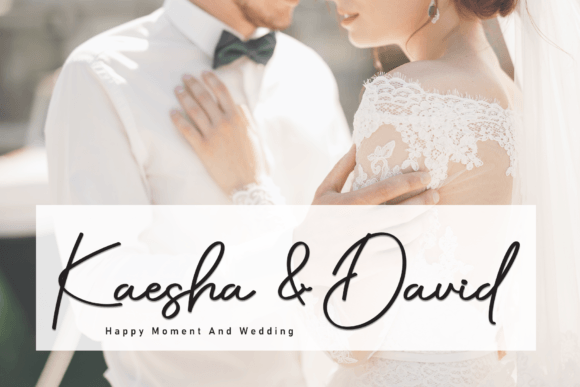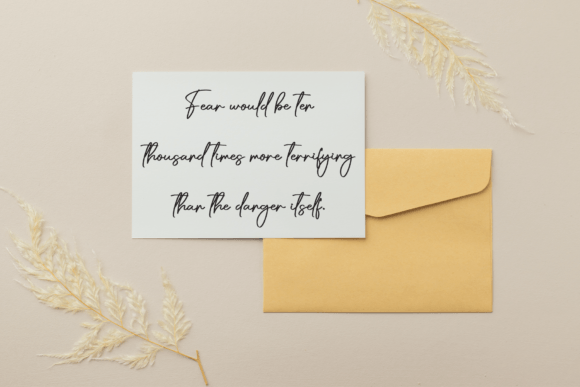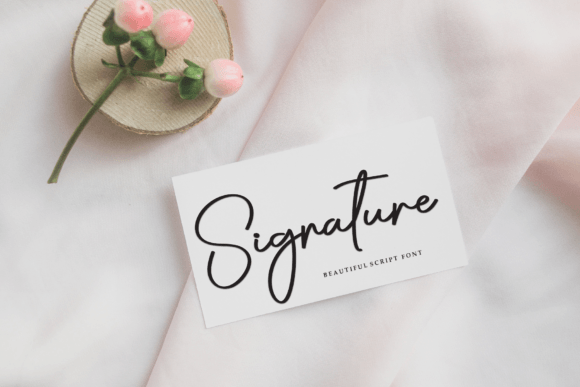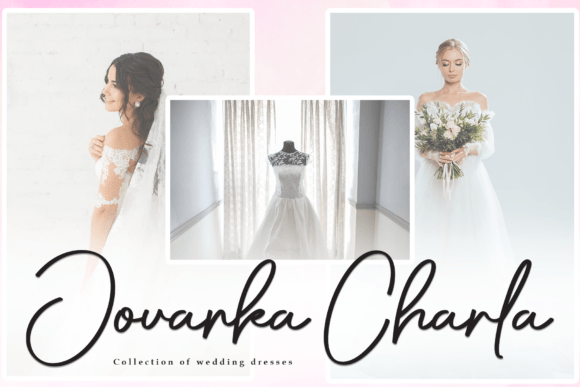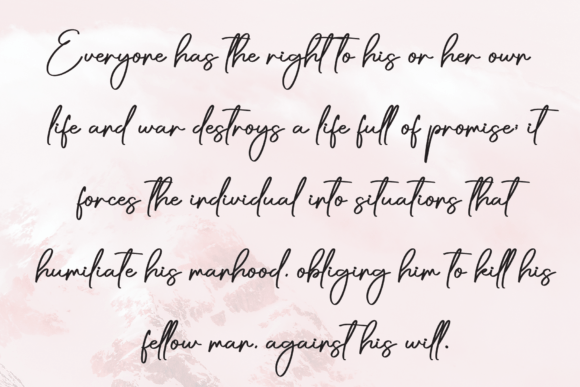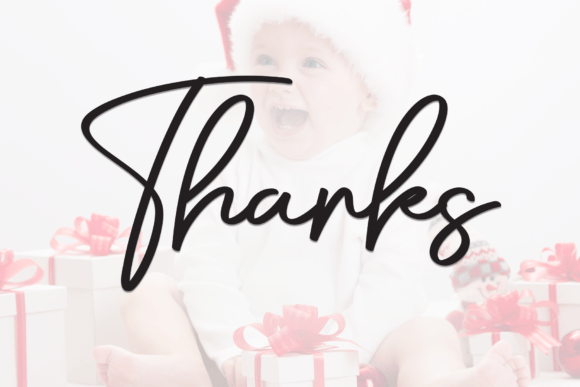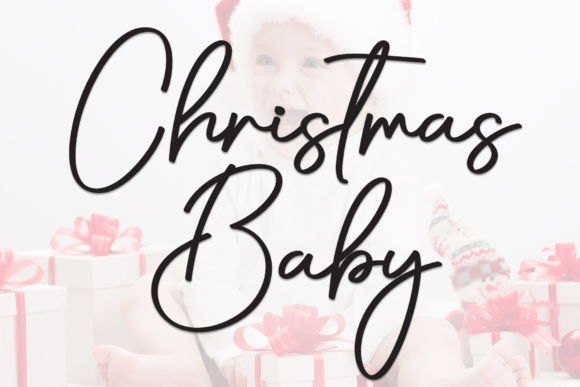
Introducing Christmas Baby Font: A Sweet and Friendly Handwritten Delight
Are you looking for a font that embodies the warmth and joy of the holiday season? Look no further than Christmas Baby Font, a sweet and friendly handwritten font that’s perfect for a wide range of design projects. With its natural and unique style, Christmas Baby Font is incredibly versatile and can be used to create a variety of designs that are sure to capture the spirit of the season.
The Characteristics of Christmas Baby Font
Christmas Baby Font is a handwritten font that boasts a charming and approachable feel. Its natural, cursive style gives it a personal and intimate touch, making it perfect for designs that require a friendly and welcoming tone. The font’s unique characteristics include:
- Handwritten style: Christmas Baby Font is a genuine handwritten font, crafted to resemble the natural flow and imperfections of handwriting.
- Unique and distinctive: The font’s one-of-a-kind style sets it apart from more traditional fonts, making it perfect for designers who want to add a touch of personality to their work.
- Natural and effortless: Christmas Baby Font has a relaxed, effortless feel that makes it perfect for creating designs that are warm, inviting, and engaging.
Endless Design Possibilities with Christmas Baby Font
One of the best things about Christmas Baby Font is its incredible versatility. The font’s natural and unique style makes it suitable for a wide range of design projects, from:
- Holiday cards and invitations: Create beautiful and festive holiday cards, invitations, and gift tags that are sure to delight your friends and family.
- Branding and packaging: Use Christmas Baby Font to add a touch of personality to your brand’s packaging and marketing materials.
- Digital and print media: The font is perfect for creating engaging social media graphics, blog posts, and print materials, such as flyers, brochures, and posters.
- Crafting and DIY projects: Christmas Baby Font is a great addition to any crafter’s toolkit, perfect for creating handmade cards, gift tags, and other DIY projects.
Why Designers and Crafters Love Christmas Baby Font
So, why do designers and crafters love Christmas Baby Font? Here are just a few reasons:
- Easy to read and use: The font is clear, legible, and easy to use, making it perfect for designs that require a friendly and approachable tone.
- Highly versatile: Christmas Baby Font can be used for a wide range of design projects, from digital media to print materials and crafting projects.
- Unique and eye-catching: The font’s distinctive style sets it apart from more traditional fonts, making it perfect for designers who want to add a touch of personality to their work.
Get Creative with Christmas Baby Font
With Christmas Baby Font, the only limit is your imagination! Here are a few ideas to get you started:
- Create a holiday-themed blog post: Use Christmas Baby Font to create a festive and engaging blog post that’s sure to delight your readers.
- Design a custom holiday card: Create a beautiful and personalized holiday card using Christmas Baby Font.
- Develop a brand identity: Use Christmas Baby Font to add a touch of personality to your brand’s marketing materials and packaging.
In conclusion, Christmas Baby Font is a sweet and friendly handwritten font that’s perfect for designers and crafters who want to add a touch of personality to their work. With its natural and unique style, Christmas Baby Font is incredibly versatile and can be used for a wide range of design projects. So why wait? Get creative with Christmas Baby Font today and see what amazing designs you can come up with!